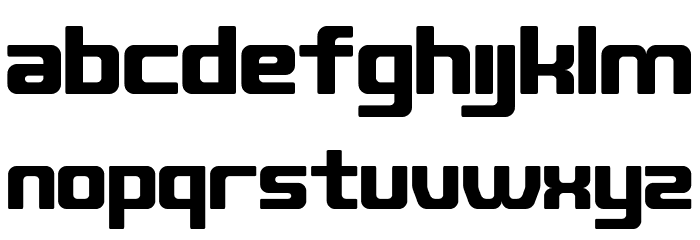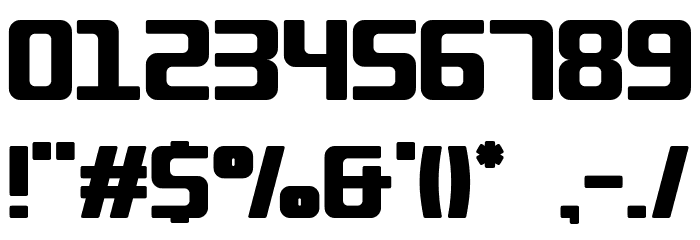
QUUB Black_R Font
This font exhibits a bold and modern aesthetic with a geometric and blocky structure. The characters are uniformly thick, providing a strong visual impact. The rounded corners soften the otherwise rigid appearance, making it approachable and versatile. The uppercase and lowercase letters maintain a consistent height, contributing to a cohesive look. The numerals and special characters follow the same design principles, ensuring uniformity across all elements. This font is suitable for digital and print media, where a contemporary and assertive style is desired.
A bold, geometric font with rounded corners and a modern style.
- Font: QUUB Black_R
- Proposed Projects: Ideal for branding, headlines, posters, and digital interfaces requiring a strong, modern presence.